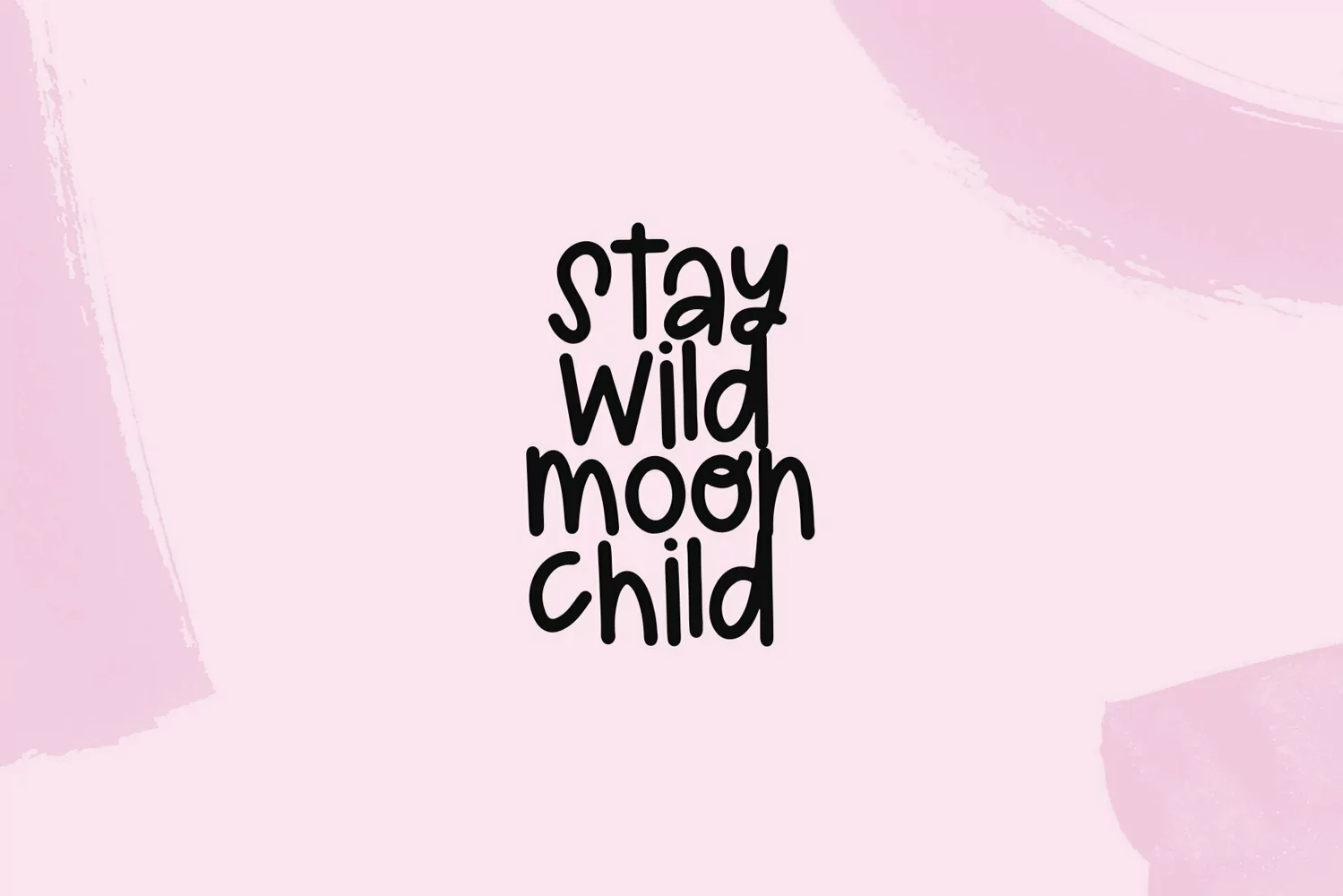
Wild Bloom is a fun handwritten font!
This font is perfect for quotes, shirt designs, websites, branding, children's designs, svg designs, blogs, logos, invitations and more!